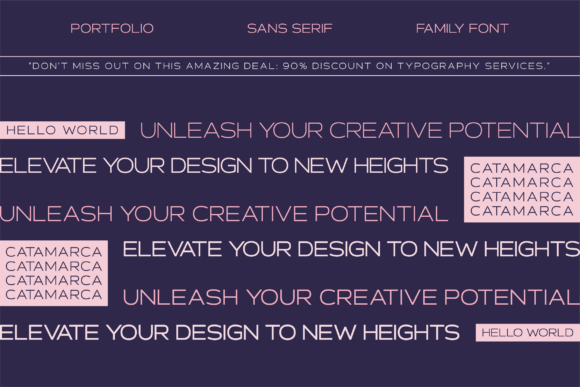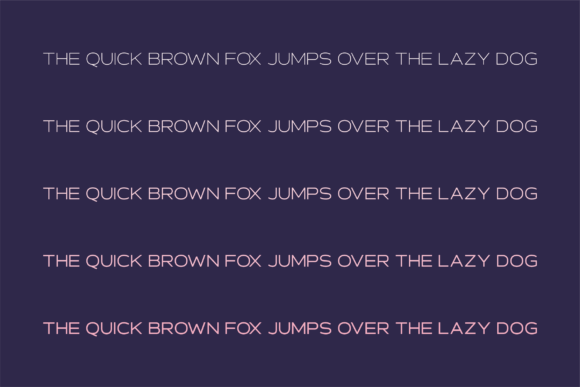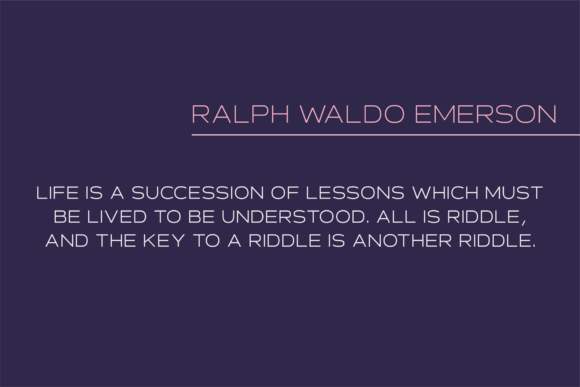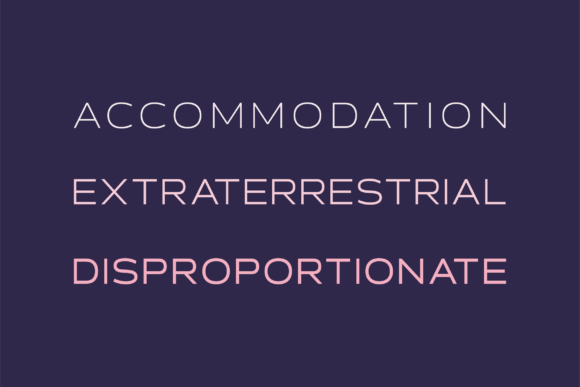
A New Era of Design: Introducing Catamarca Font
As designers, we’ve all experienced that moment of pure creative bliss – when a font, a color palette, or a composition comes together in a way that perfectly captures the essence of our vision. It’s that ‘aha’ moment that drives us to push the boundaries of innovation and creativity. And for those who have been searching for a font that embodies the perfect blend of elegance and minimalism, your search is over.
Meet Catamarca Font, a masterfully crafted sans-serif font family designed to elevate your designs to new heights. With 5 distinct weights, Catamarca Font offers unparalleled versatility, making it an invaluable asset for any designer looking to add a touch of sophistication and luxury to their projects. Whether you’re working on a magazine, a logo, or a film poster, Catamarca Font is the perfect tool to help you unlock your full creative potential.
Catamarca Font Key Features
- Size: The font family consists of 6 styles, including Light, Regular, Medium, Bold, Extra Bold, and Black, offering a range of options for designers and typographers.
- Unique Characteristics: Catamarca Font features a unique blend of modern and traditional design elements, with clean lines, geometric shapes, and subtle nuances that evoke a sense of sophistication and elegance.
Designer Review: Catamarca Font
After diving into the world of Catamarca Font, I have to say I’m both impressed and underwhelmed.
- The elegant and refined aesthetic of the font is a standout feature. It’s perfect for luxury brands and high-end products.
- The OpenType features are impressive, offering a wide range of stylistic alternatives and swash options that can really elevate your designs.
- The font’s versatility shines through in its ability to work well in both digital and print mediums.
- The font may not be the most suitable choice for casual or informal projects, as its refined nature can come across as stuffy or pretentious.
- The OpenType features, while impressive, can be overwhelming for some users. The sheer number of options may be daunting for those looking for a more streamlined experience.
Catamarca Font is a solid choice for designers looking to add a touch of sophistication to their projects. While it may not be the most versatile font, its unique aesthetic and impressive OpenType features make it a great option for the right kind of project. Just be aware of its limitations and consider the tone you want to convey with your design.
Use Catamarca Font for:
– Creative and artistic projects
– Travel and tourism branding
– Luxury and high-end product designs
– Any project requiring a unique and stylish font